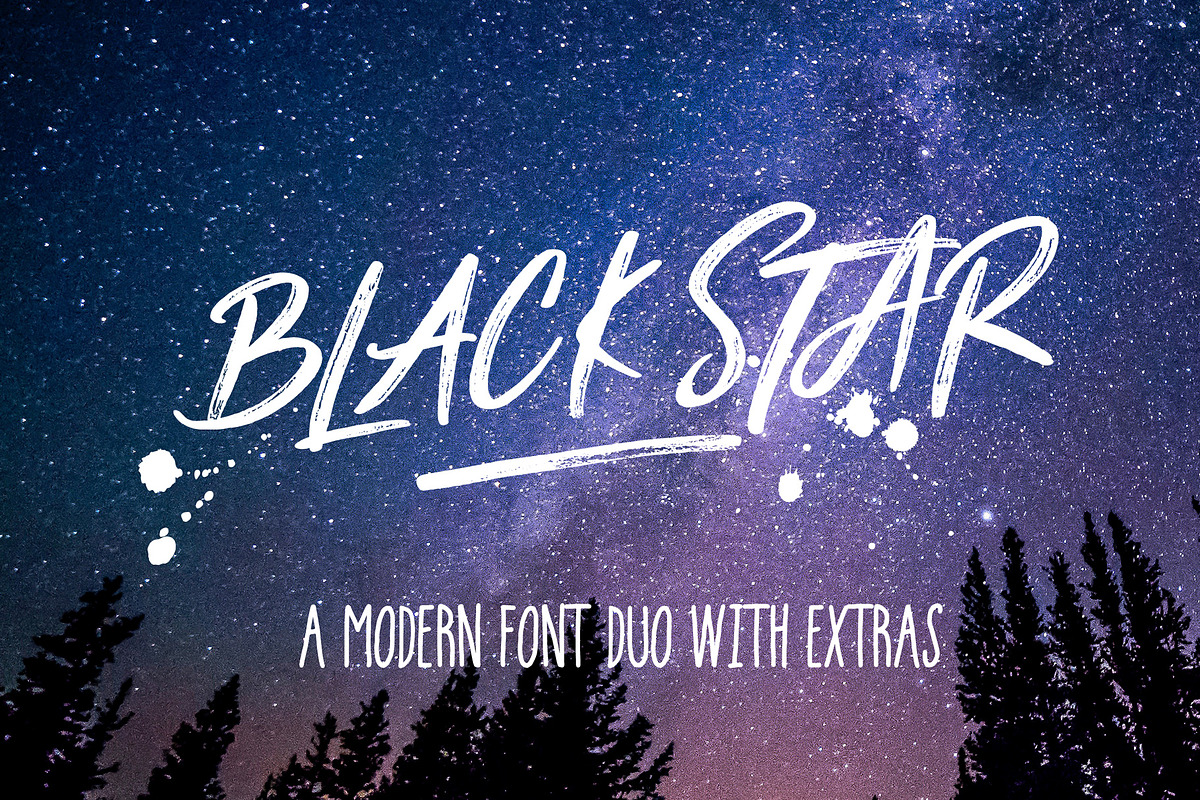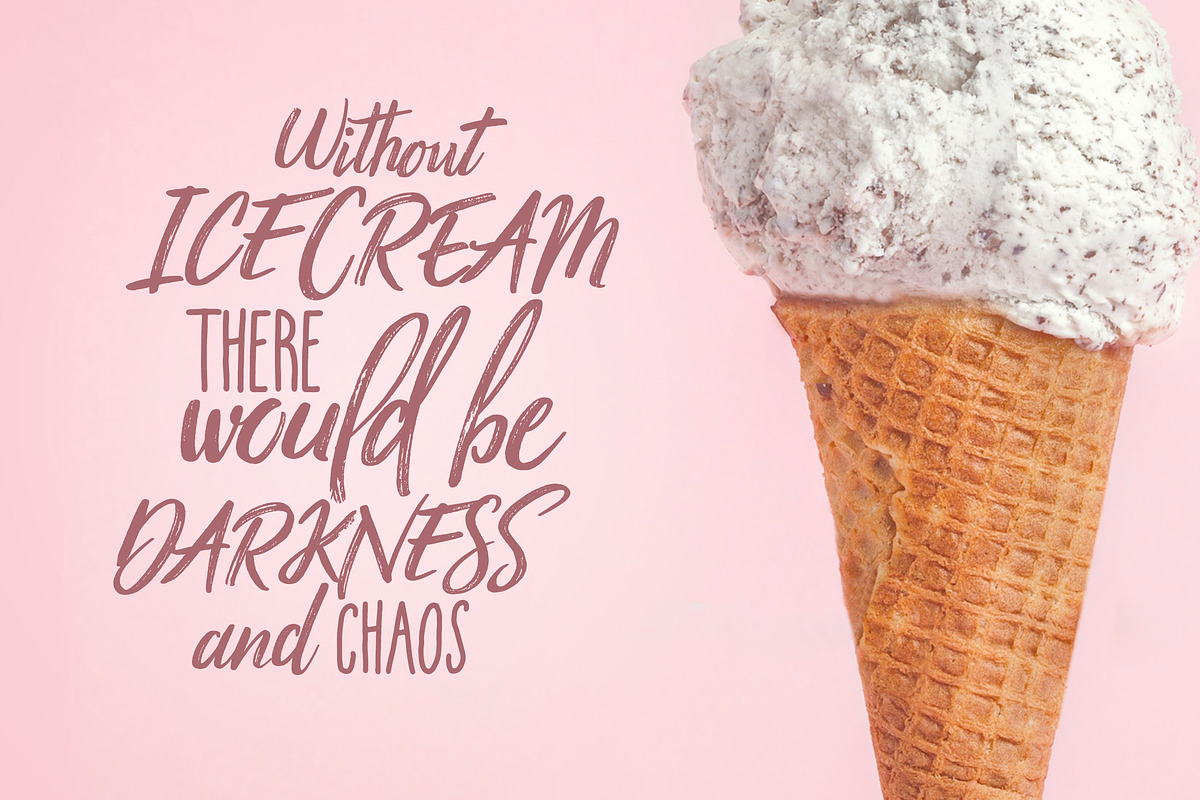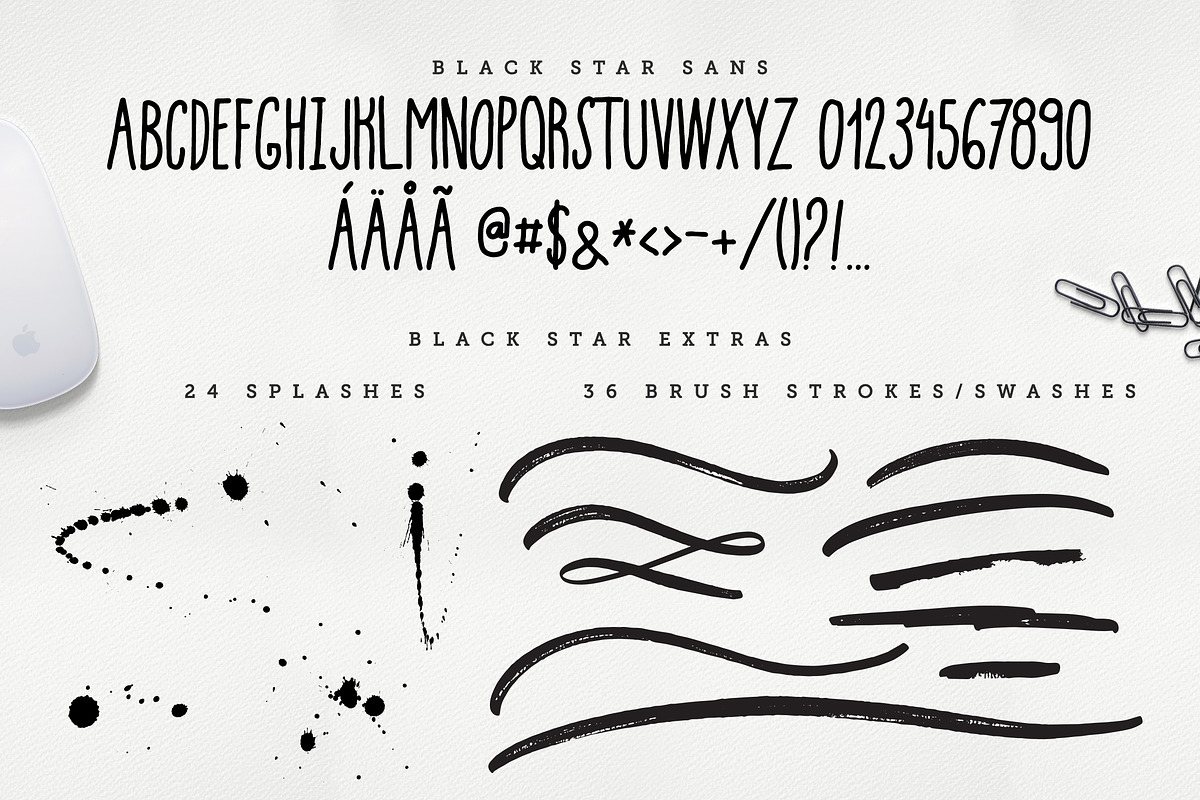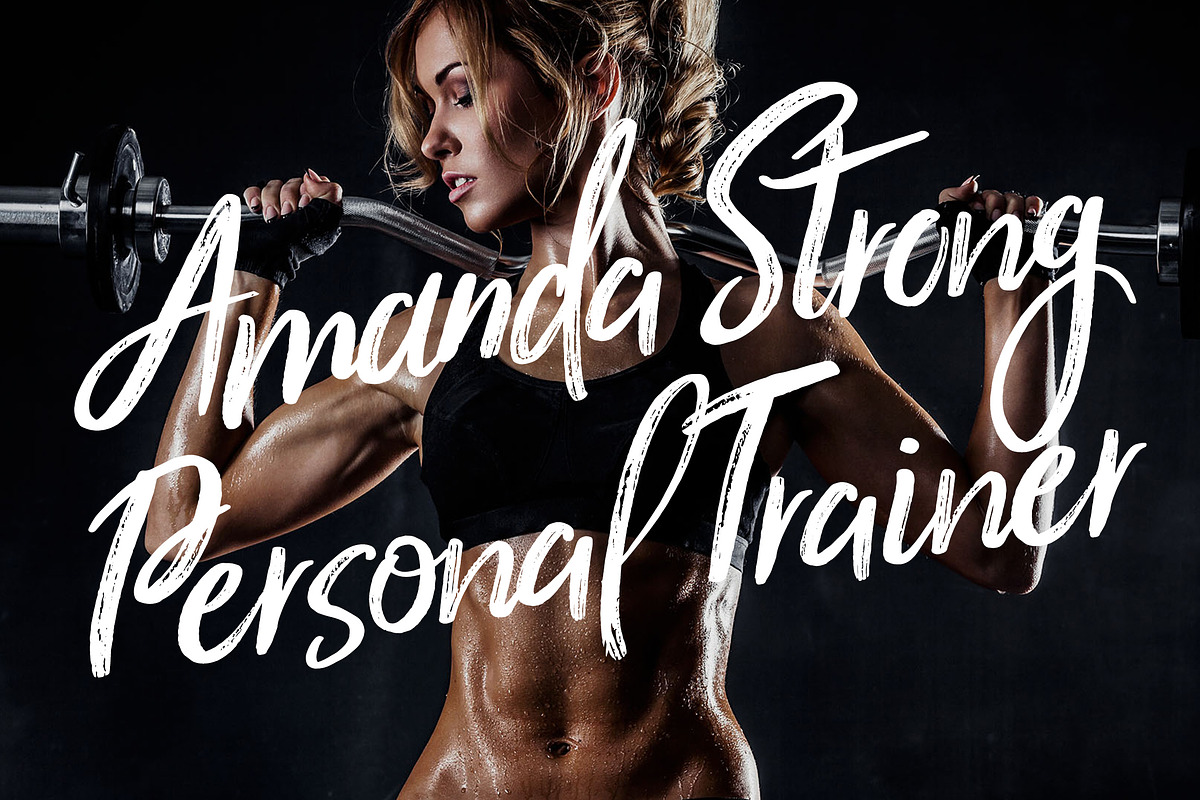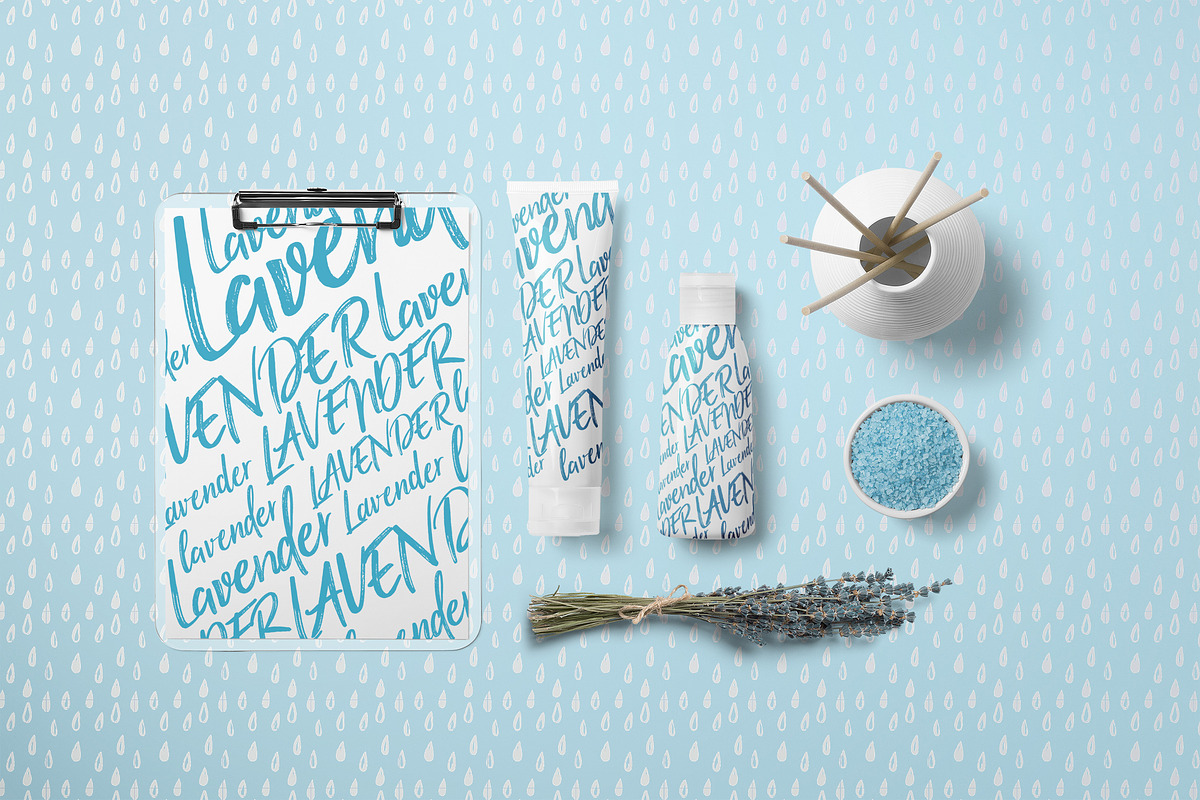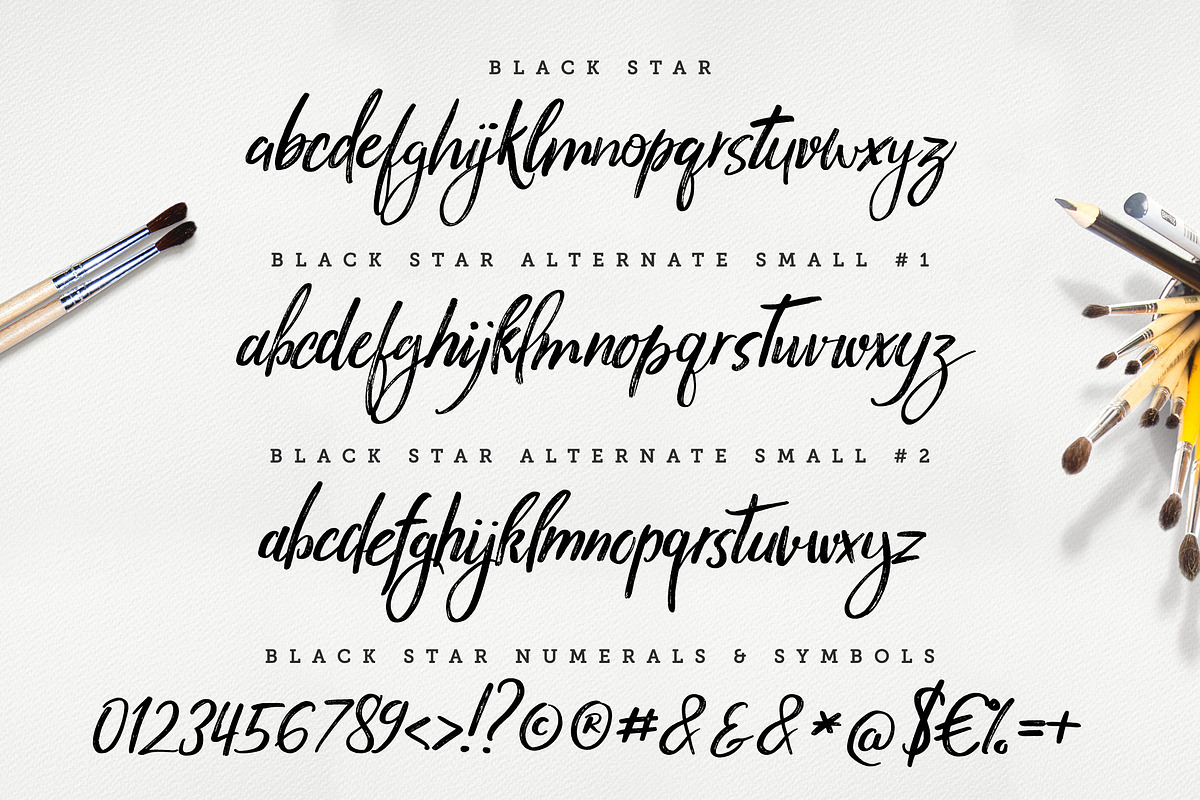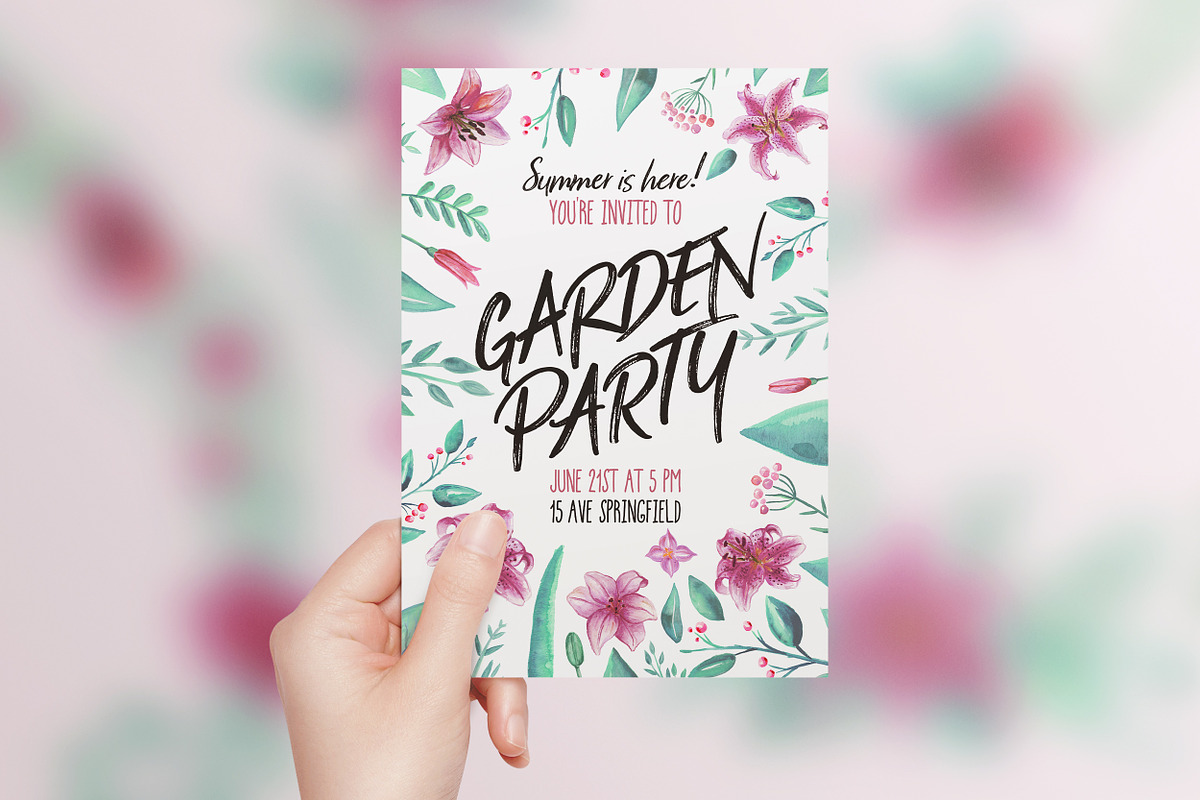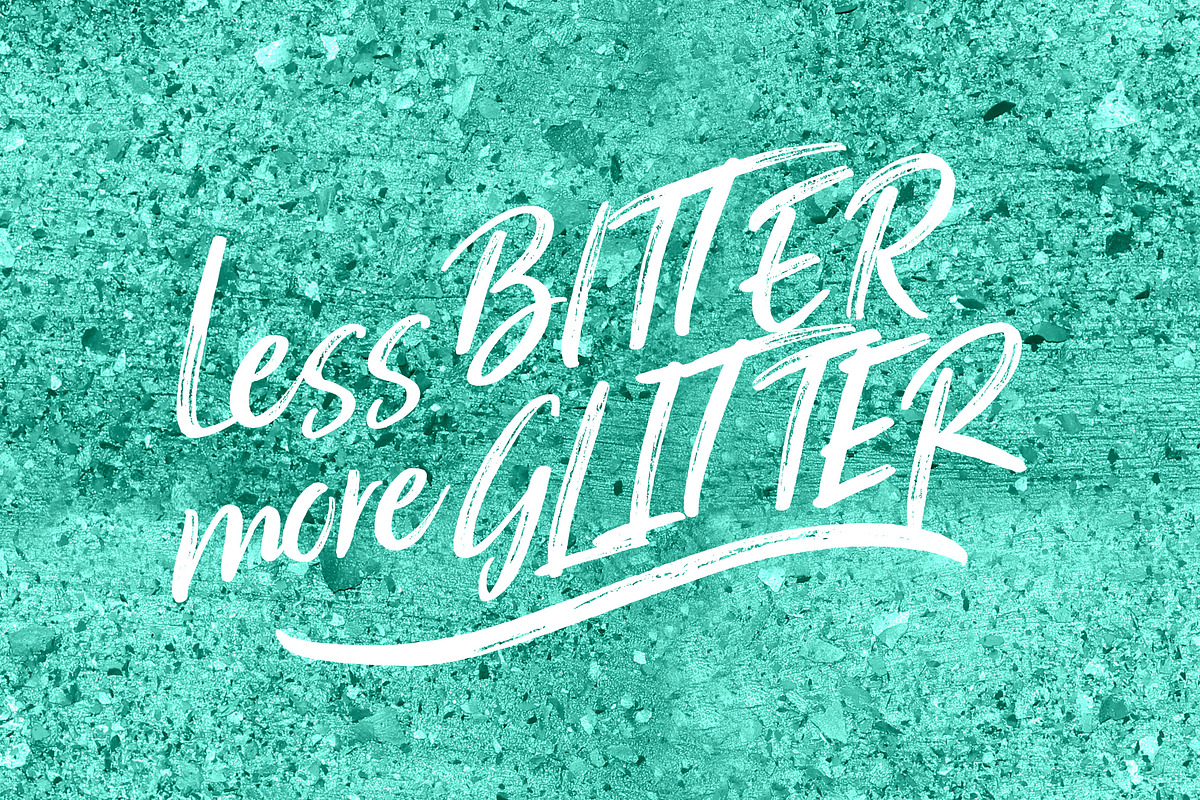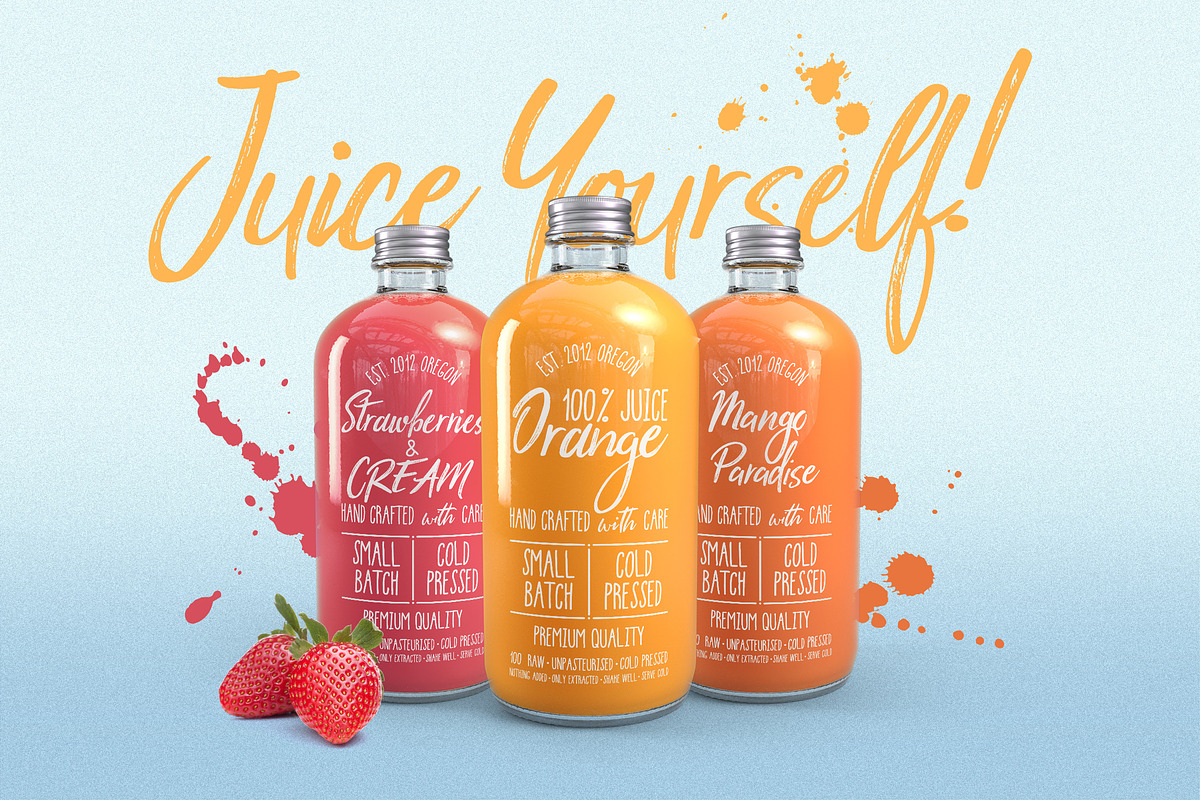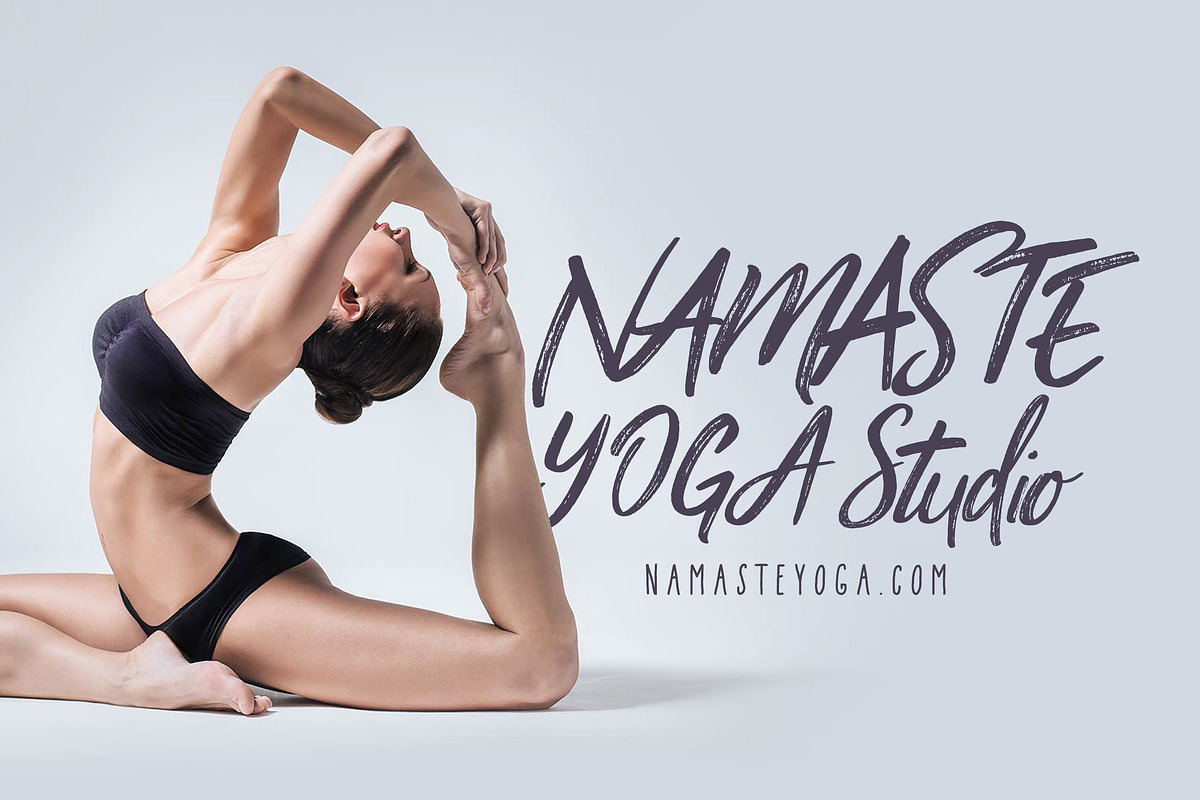
Black Star : 3 Sets + Sans
Black Star is a textured handwritten modern casual script packed with advanced features and extra goodies. It's awesome for packaging, merchandise, posters, invitations, sign making, magazines, creative websites...
The main font includes 2 full sets of stylistic alternates. Basically it is like 3 different fonts that work together. You can choose from 3 different characters - both in small letters and caps! Black Star also includes ligatures for most common character pairs and international support. As a bonus you'll get perfectly matching Sans Font and set of ink splashes and brush strokes for those extra touches for your design.
Black Star Sans is a modern handwritten sans font that perfectly complements the main font. Use it for showing hierarchy in your design or mix and match to make something really creative. I've added 36 handwritten brush strokes that you can use as swashes or underlines in your design and 24 scanned and vectorised splashes to add more organic inky look to your texts.